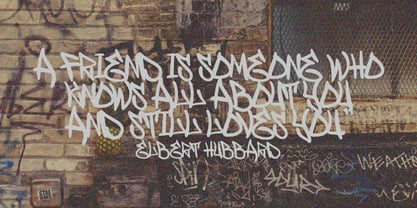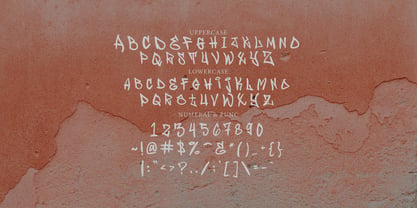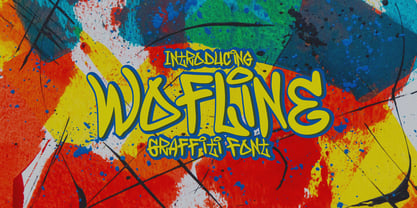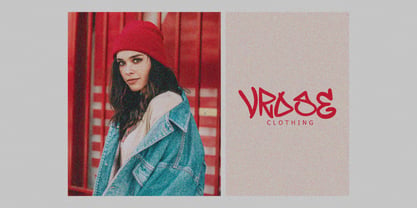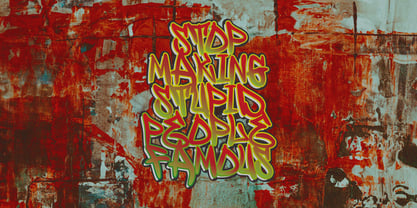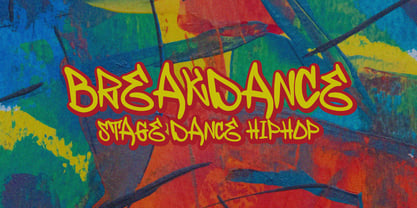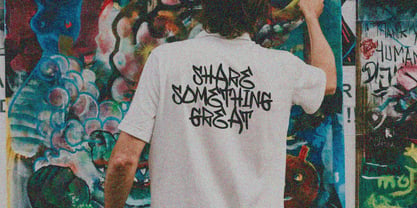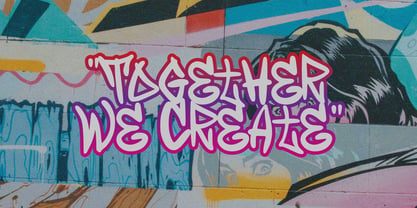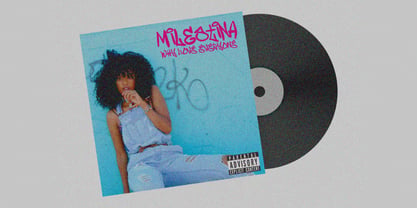
Wofline Graffiti
by Tebaltipis Studio
The Wofline Graffiti Font Family was designed by Dzulka Elfira and published by Tebaltipis Studio. Wofline Graffiti contains 1 styles. More about this family
Wolfine Graffiti is a display font inspired by typical street art calligraphy style or graffiti tag, suitable for your design related to it. Also suitable for movie, documenter, film, logo, poster, game, book cover, headlines, title and many more projects. Add this font to your creative ideas and notice how it will make them stand out!
Wofline Graffiti